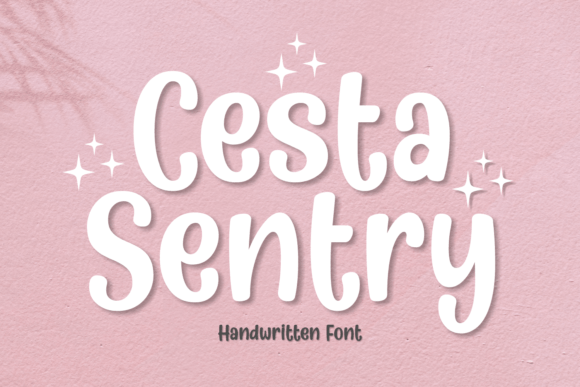
Adenman Posted May 14 Share Posted May 14 Cesta Sentry is an elegant handwritten font. This lovely font will help your needs, such as logos, product packaging, invitations, branding, headlines, signage, labels, book covers, posters, quotes, and more. Compatibility: windows & apple/mac & linux Giveaway Link –> https://www.creativefabrica.com/product/cesta-sentry/ MrZeb, vhick, phen0men4 and 1 other 1 3 Link to comment Share on other sites More sharing options...